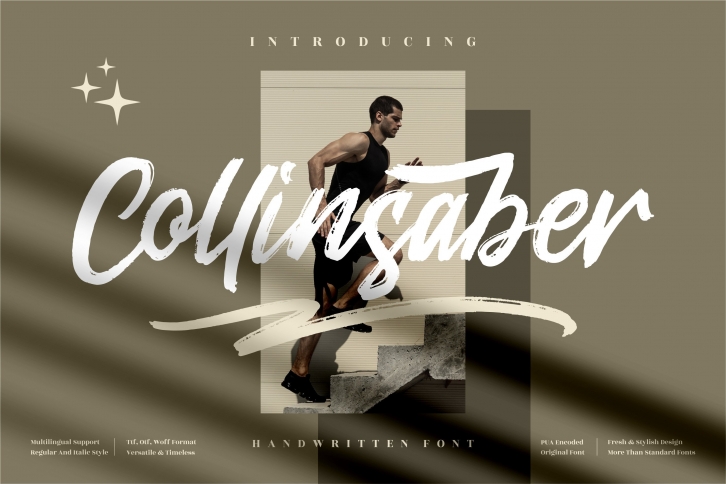
Collinsaber is a cursive, brushed handwritten font. This font is PUA encoded which means you can access all of the beautiful glyphs and swashes with ease!Â
Collinsaber
was particularly crafted for those who need a beautiful and refreshing look to their designs.Â